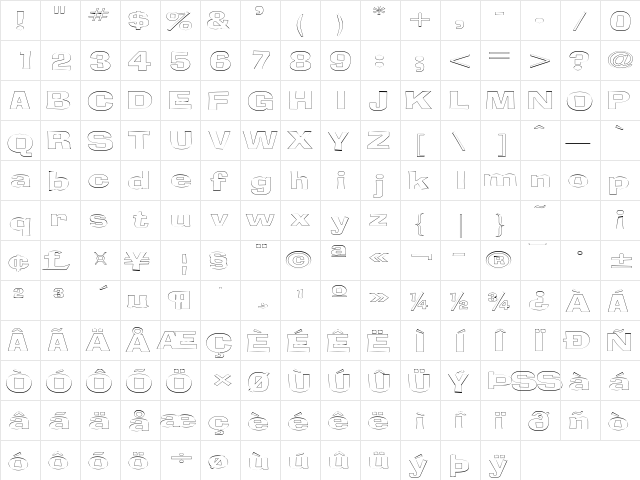
BloxOutlineExtended Regular
Design Context for BloxOutlineExtended Typeface
BloxOutlineExtended is built around its visual character rather than neutral utility — its distinctive forms are designed to make an impression at display sizes.
Font Pairing: Pair with a clean neutral sans-serif for body copy to let BloxOutlineExtended's character lead without overwhelming the composition.
Pro Tip: Use BloxOutlineExtended exclusively at display sizes — it was designed to be seen, not read at length. Let a neutral companion handle body copy.